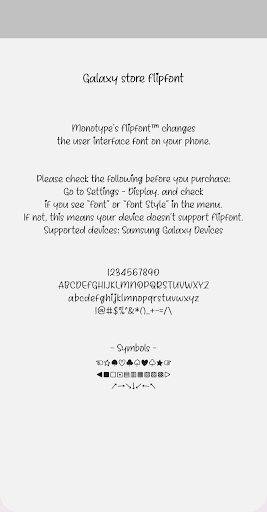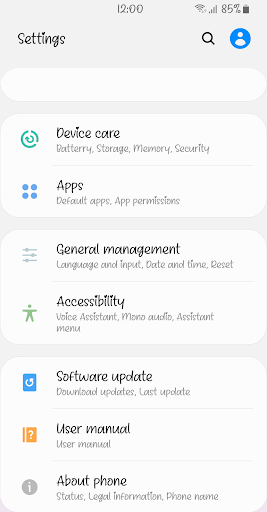
Nm SweetSnow
Nm SweetSnow is a lovely and cute font and has good readability. Customize your phone with this. Please try this font and leave your feedback.